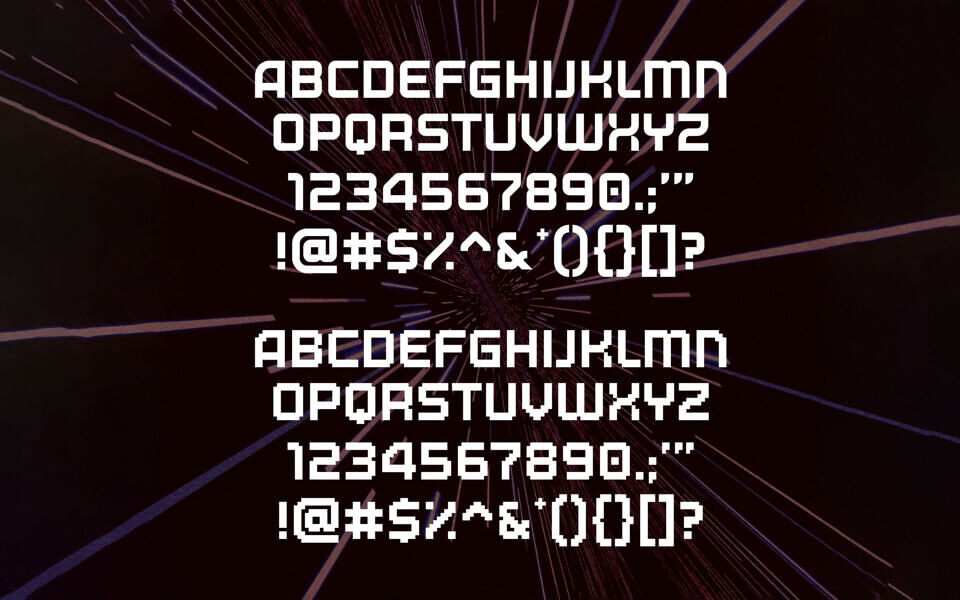
The Klaxon font is a bold, futuristic typeface designed with a striking, high-tech aesthetic. Featuring sharp, angular letterforms and a dynamic, pixelated edge, it exudes a sense of speed and innovation.
Available in both smooth and crunchy styles, the smooth variant offers a sleek, polished look, while the crunchy version adds a textured, retro-digital vibe. With a comprehensive character set including uppercase letters, numbers, and symbols, Klaxon is perfect for eye-catching headlines, logos, and designs seeking a modern, sci-fi-inspired edge.